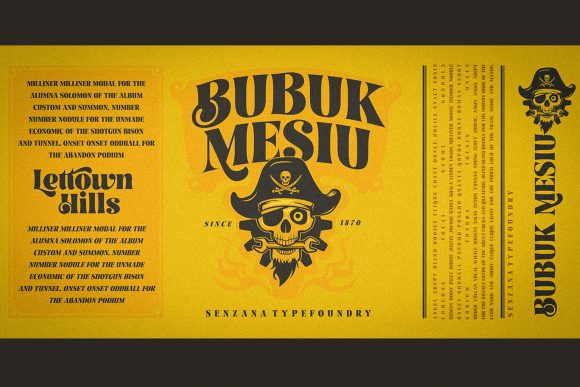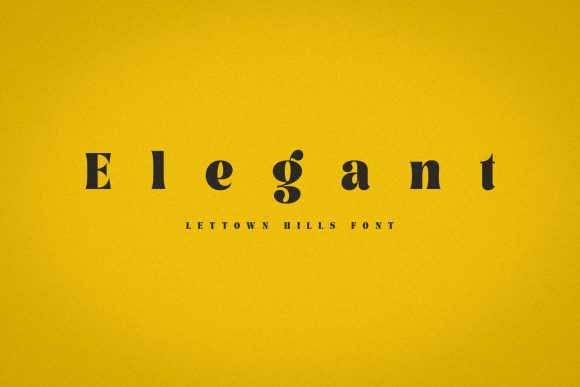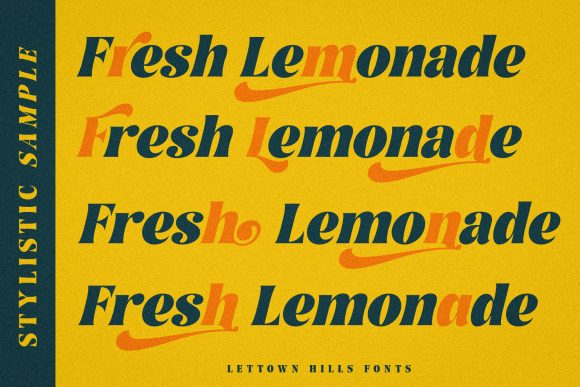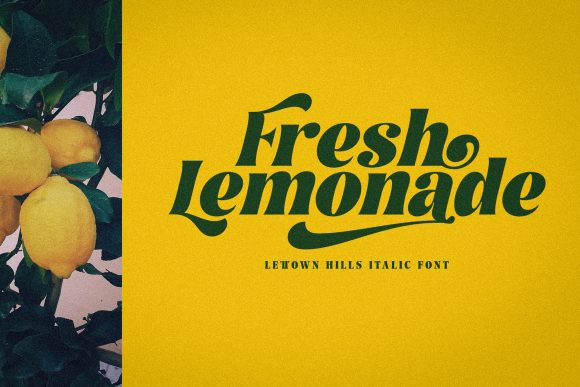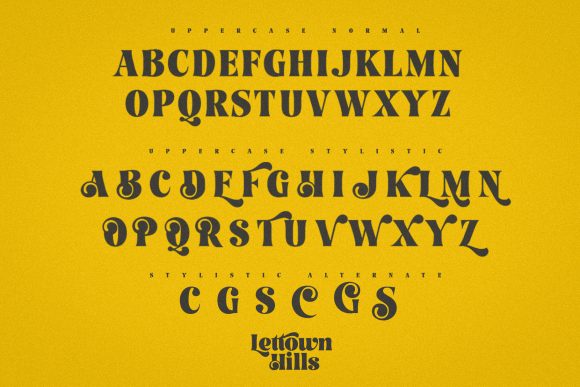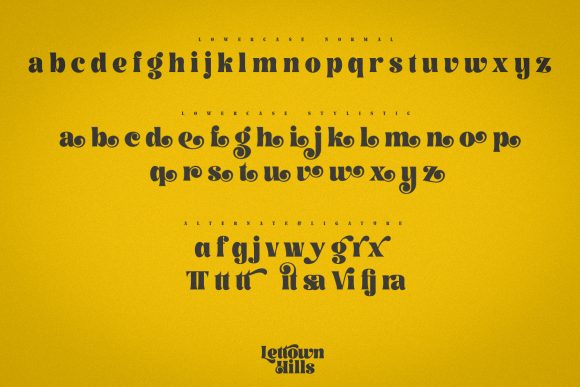
Introduction to Lettown Hills Font
Remember that moment when you’re working on a creative project and you’re stuck on finding the perfect font to make it pop? The one that gives it that extra oomph, that makes it stand out from the crowd? That’s exactly what we’re about to dive into with the Lettown Hills Font – a modern display font that’s about to take your designs to the next level.
As a designer, you know the importance of having a reliable design resource that can elevate your work. The Lettown Hills Font is one such resource, offering a high-quality, thick-lettered experience that’s perfect for fashion branding or editorial designs. With its smooth curves and transparent background, it’s an ideal addition to any project, whether you’re working on a free download or a high-end commercial campaign.
What sets Lettown Hills Font apart is its versatility – it’s just as suitable for a simple blog post as it is for a bold, eye-catching advertisement. And with its modern aesthetic, it’s sure to stay on-trend for years to come.
Key Features of Lettown Hills Font
- Unique, elegant design suitable for creative projects and presentations.
- High-quality, scalable font with transparent background for seamless integration into any design.
- Supports multiple languages and includes a wide range of characters for international use.
- Includes a comprehensive character set, including uppercase and lowercase letters, numbers, and punctuation.
Honest Review: Lettown Hills Font
I recently had the opportunity to try out the Lettown Hills Font, and I must say, it’s a great addition to any design resource library. The font’s unique, modern aesthetic makes it perfect for a wide range of creative projects, from logos and branding to digital art and print materials.
What works well: ✨ The font’s high quality is evident from the first glance. The letters are well-designed, and the weight and spacing are spot on. The font also features a transparent background, which is a nice touch for designers who want to easily layer their text over different backgrounds.
What doesn’t work well: ⚠️ While the font is great on its own, it can be a bit limited in terms of versatility. The design is quite modern and trendy, which may not be suitable for more traditional or formal projects. Additionally, the font family is relatively small, so you may not have as many options for different weights and styles.
Overall impression: I’m impressed with the Lettown Hills Font, and I would definitely recommend it to designers who are looking for a modern, high-quality font for their creative projects. The free download is a nice bonus, and I appreciate the transparent background feature.
- Perfect for modern and trendy projects
- High quality and well-designed letters
- Relatively small font family
Use a transparent background to give your design a clean and modern look. Experiment with different font sizes and styles to create visual interest. You can also pair Lettown Hills Font with other high-quality design resources for a professional look.
Lettown Hills Font is perfect for creative projects such as logos, branding materials, and marketing materials. You can also use it for presentations, documents, and websites. With its high-quality design, it’s a great resource for designers and non-designers alike.